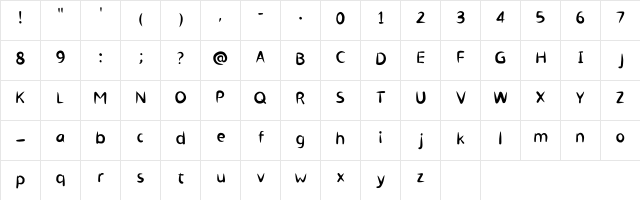
Shrinxx Regular
Design Context for Shrinxx Typeface
Shrinxx takes a measured approach to typography — its balanced proportions and neutral character make it a reliable workhorse for both digital and print work.